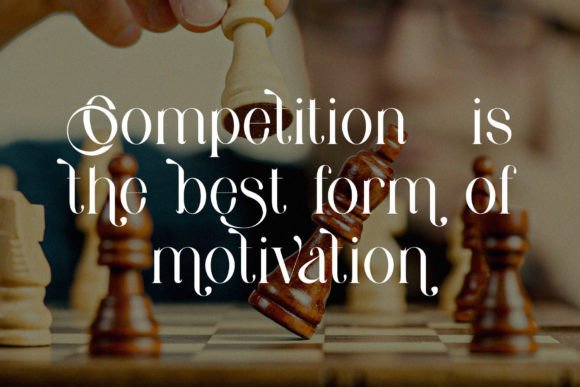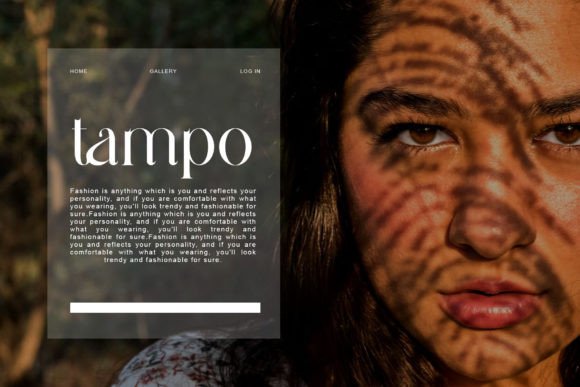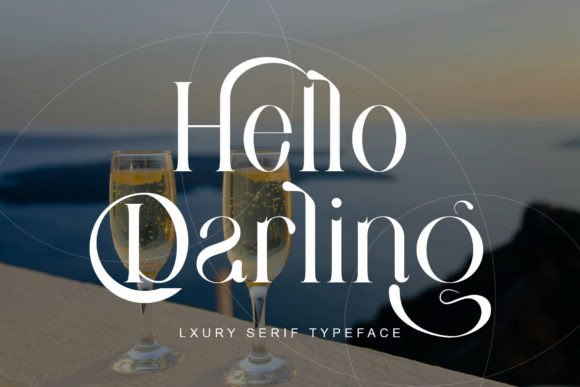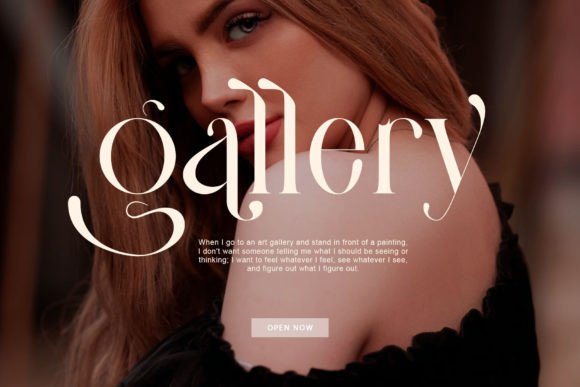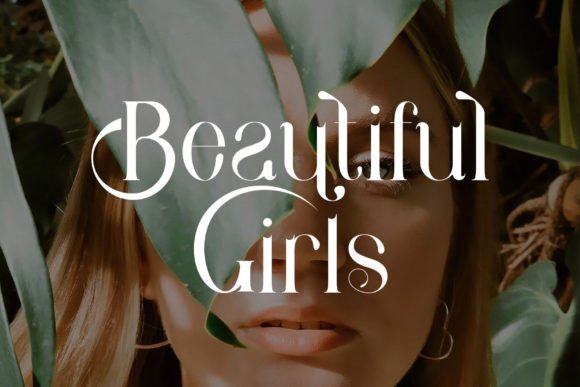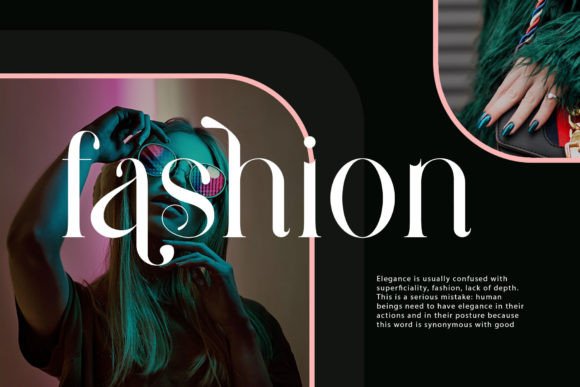
Gallits Font: Elevate Your Designs with Elegance and Class
In the world of typography, a good font can make all the difference in creating a lasting impression. For designers and crafters looking to add a touch of sophistication to their work, Gallits Font is an excellent choice. This elegant and classy serif typeface is both modern and nostalgic, making it a versatile addition to any font library.
The Characteristics of Gallits Font
Gallits Font boasts a unique blend of classic and contemporary features. Its serif design gives it a timeless feel, while its clean lines and precise curves make it perfect for modern applications. The font’s elegance is evident in its refined letterforms, which exude a sense of luxury and sophistication.
One of the standout features of Gallits Font is its versatility. Whether you’re working on a logo, magazine, or social media post, this font is sure to elevate your design. Its adaptability makes it an excellent choice for a wide range of projects, from branding and advertising to editorial and digital content.
Why Choose Gallits Font?
So, what sets Gallits Font apart from other typefaces? Here are just a few reasons why designers and crafters love this font:
- Elegance and sophistication: Gallits Font’s refined design makes it perfect for projects that require a touch of luxury and class.
- Modern and nostalgic: This font’s unique blend of classic and contemporary features makes it both timeless and modern.
- Versatility: Gallits Font works great for a wide range of projects, from logos and magazines to social media posts and more.
- Easy to read: The font’s clean lines and precise curves make it easy to read, even at small sizes.
Using Gallits Font in Your Designs
So, how can you use Gallits Font to elevate your designs? Here are a few ideas to get you started:
- Logos and branding: Use Gallits Font to create a sophisticated and elegant logo that will help your brand stand out.
- Magazines and editorials: This font is perfect for magazine and editorial design, adding a touch of class and sophistication to your content.
- Social media posts: Use Gallits Font to create eye-catching social media posts that will help you connect with your audience.
- Packaging and advertising: This font is also great for packaging and advertising design, helping you to create eye-catching and effective campaigns.
Tips for Getting the Most Out of Gallits Font
To get the most out of Gallits Font, here are a few tips to keep in mind:
- Experiment with different sizes: Gallits Font works great at a wide range of sizes, from small captions to large headlines.
- Play with color: This font looks great in a variety of colors, so don’t be afraid to experiment and find the perfect hue for your design.
- Mix and match: Try pairing Gallits Font with other fonts to create a unique and interesting typography combination.
In conclusion, Gallits Font is an elegant and classy serif typeface that is sure to elevate your designs. Its unique blend of modern and nostalgic features makes it a versatile addition to any font library, and its ease of use makes it perfect for a wide range of projects. Whether you’re a designer, crafter, or simply someone looking to add a touch of sophistication to your work, Gallits Font is an excellent choice.